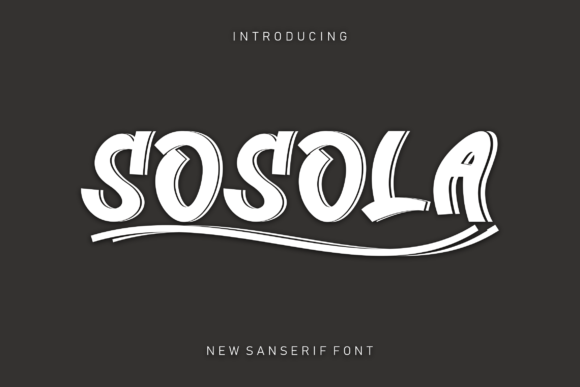
Step into the world of typography with Sosola, where sophistication and style intertwine. This modern sans serif font exudes a timeless charm that will elevate your designs to new heights.
Crafted with meticulous attention to detail, Sosola boasts clean lines and a touch of elegance that make it perfect for a wide array of creative projects. Its versatile nature allows it to seamlessly complement both bold headlines and captivating body text, ensuring that your message leaves a lasting impression on your audience.
Let Sosola dance across the covers of your magazines, bringing your words to life with unmatched allure. Its crisp and refined strokes will captivate readers, drawing them into the captivating tales and insights within.
Whether you're a seasoned designer or just starting your typographic journey, Sosola is the perfect font to elevate your projects. With its user-friendly charm and endless possibilities, this font will ignite your creativity and inspire your designs to soar.
So, embrace the power of Sosola and let your words shine with newfound brilliance. Add it to your design toolbox today and watch as your projects transform into works of art!